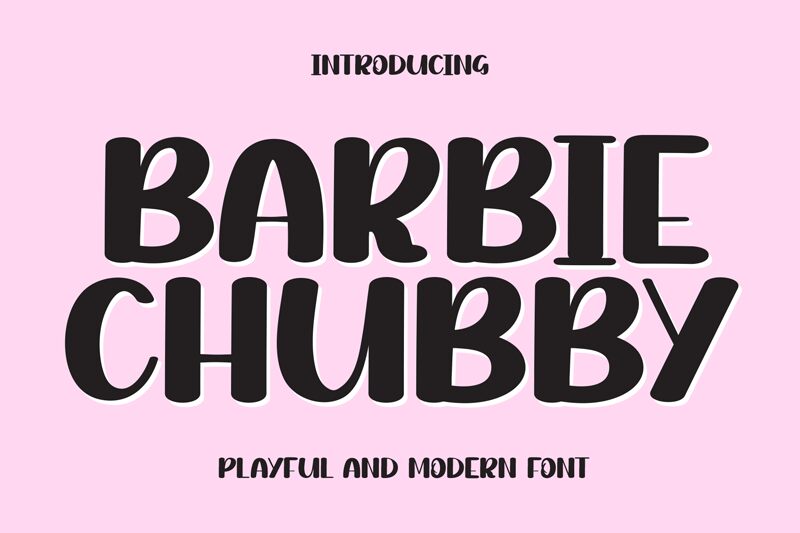
Barbie Chubby font by Andi Moz is a free cartoon display font inspired by the iconic Barbie doll logo. Its bubbly and curvy letters along with the inviting tone give this font great potential for all sorts of fun and colorful projects.
Use Barbie Chubby in poster designs for fashion brands, bookstores, children’s books and learning resources, kids’ apparel shops, toys, and board games. The font can also be applied in branding projects, signages, packaging designs, web designs, typography, patterns, and themed events.